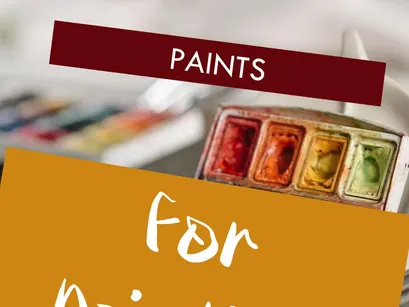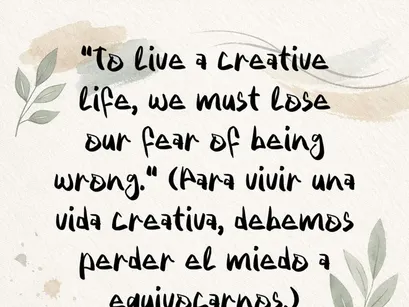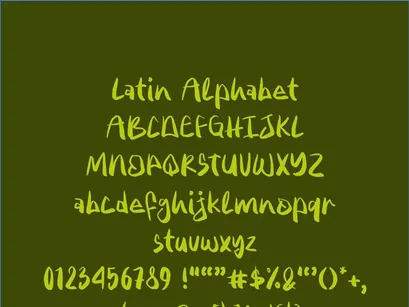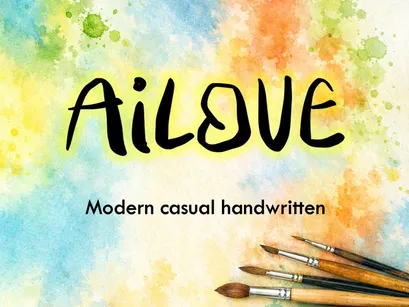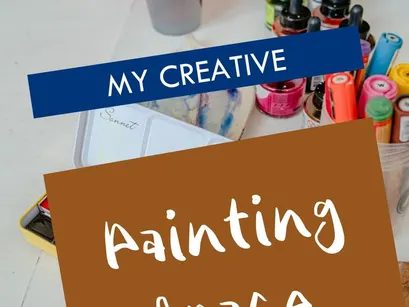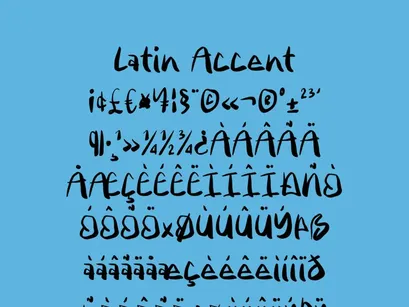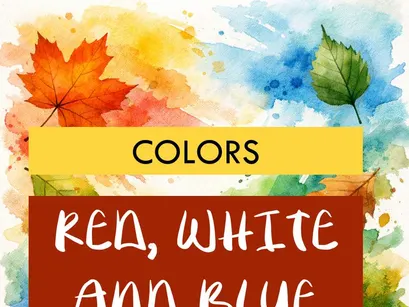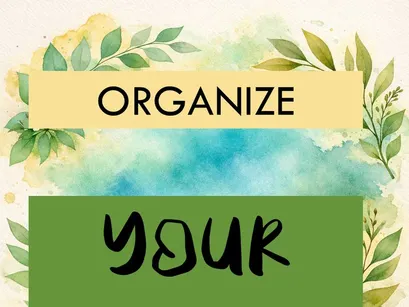
AiLOVE is a modern, casual handwritten typeface inspired by art, painting, and creative expression.
Its fluid, natural strokes reflect the freedom of the artistic process, making it ideal for planner covers, digital lettering, motivational quotes, artisanal branding, and personal projects.
It includes a full Latin alphabet, numbers, and basic symbols, and supports both English and Spanish text.
Each character was carefully drawn to evoke the movement of a brush on paper—perfect for those seeking a font with an artistic soul and positive energy.
AiLOVE was born from a love for hand-crafted creation and color. It is a typeface that invites you to let go of the fear of making mistakes and simply enjoy the creative process.